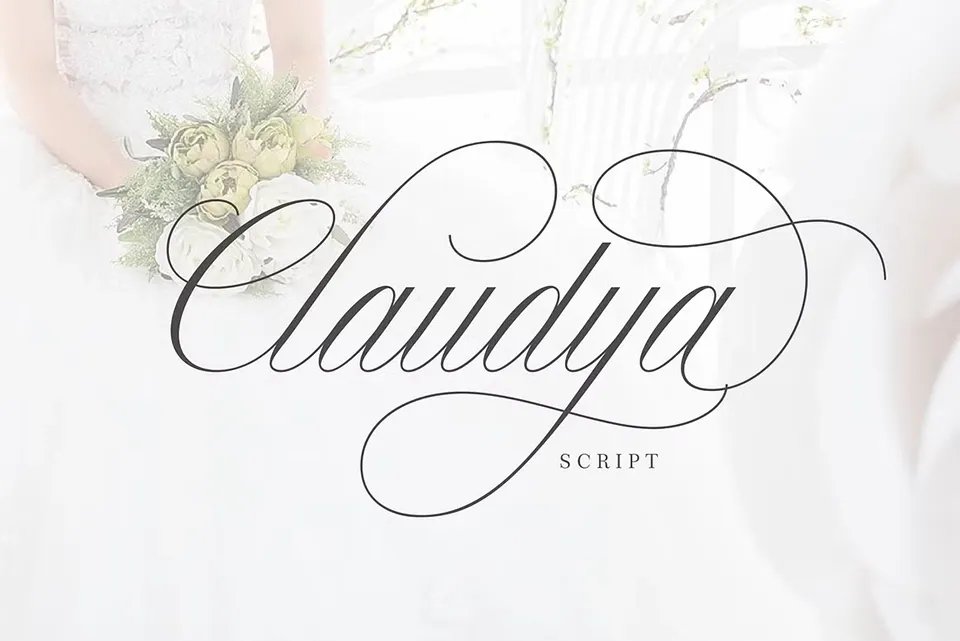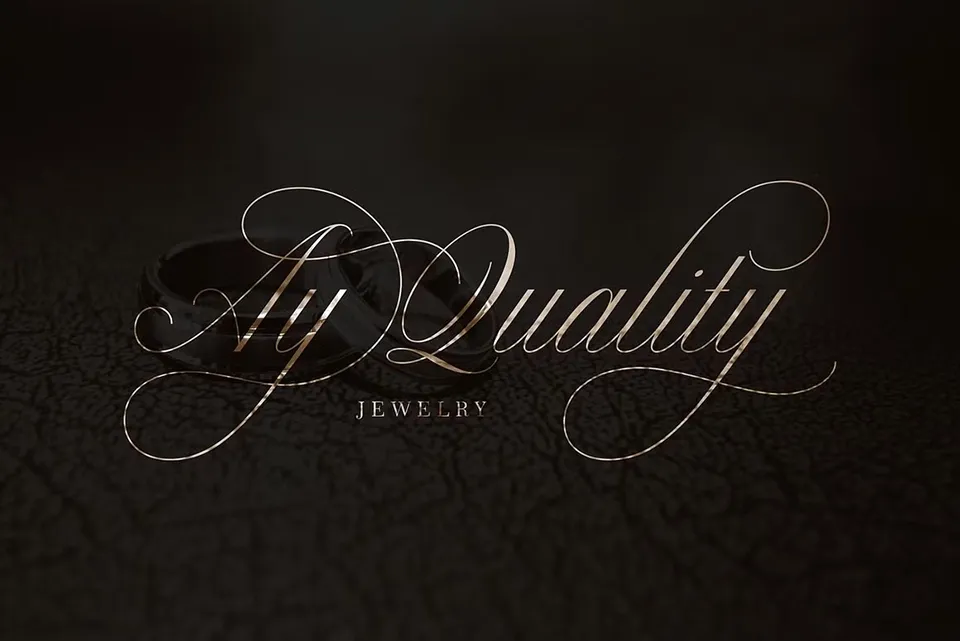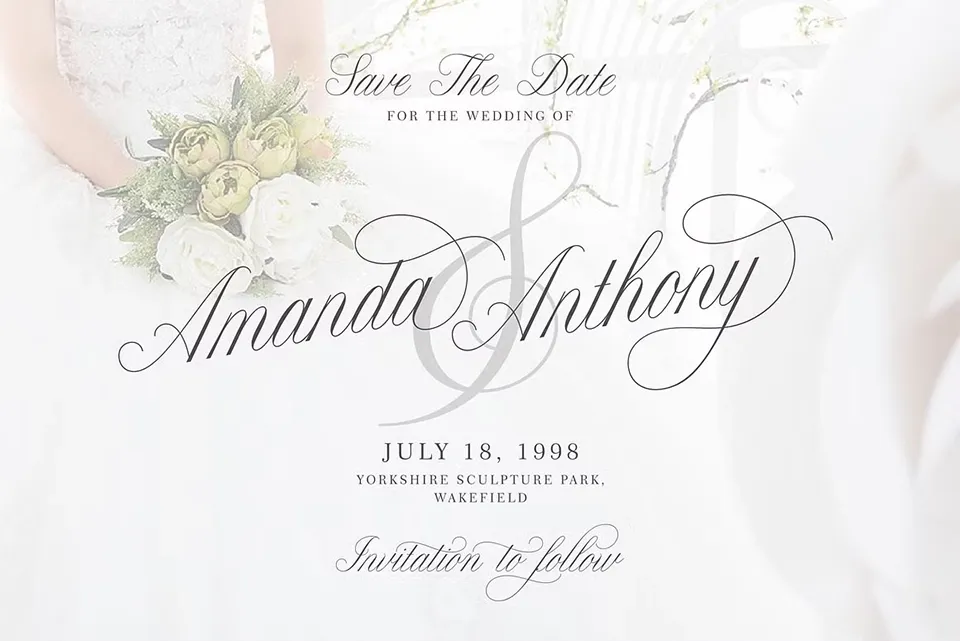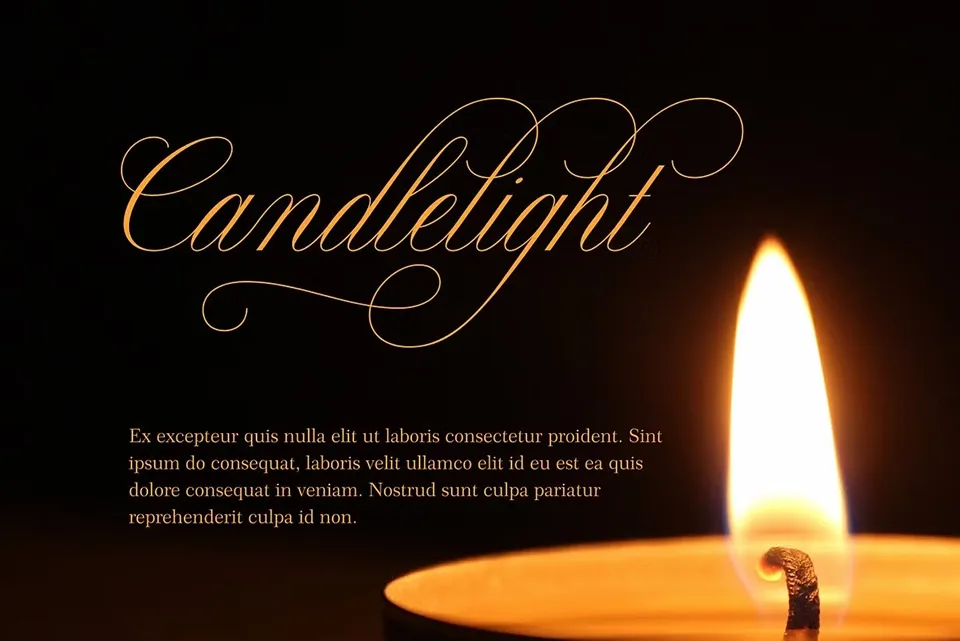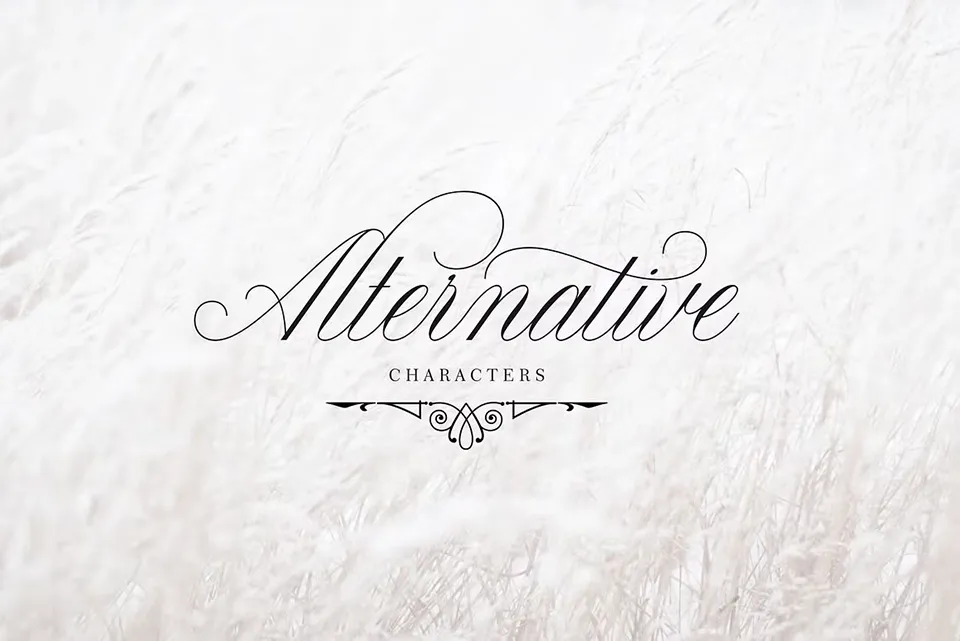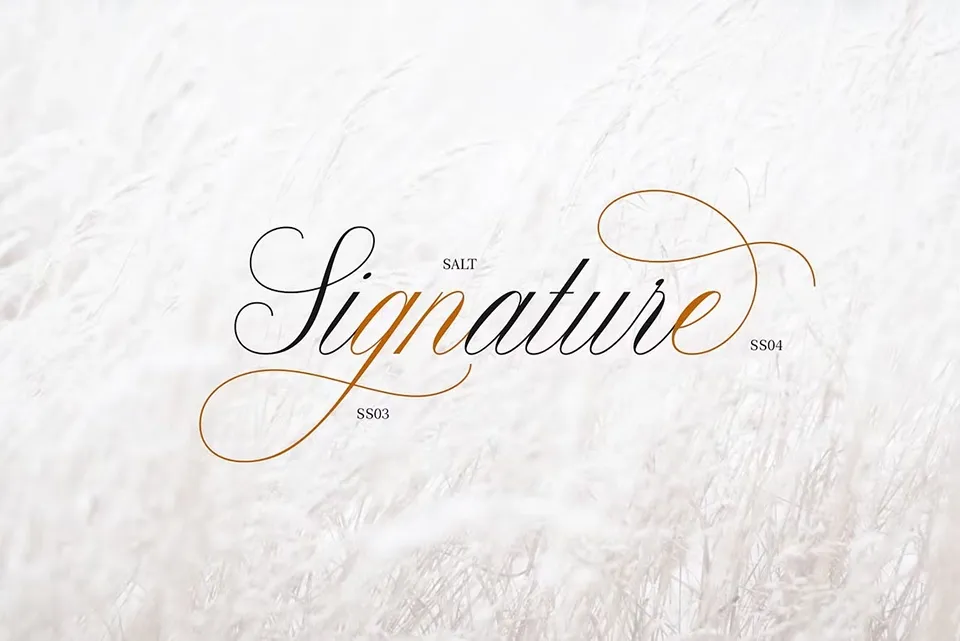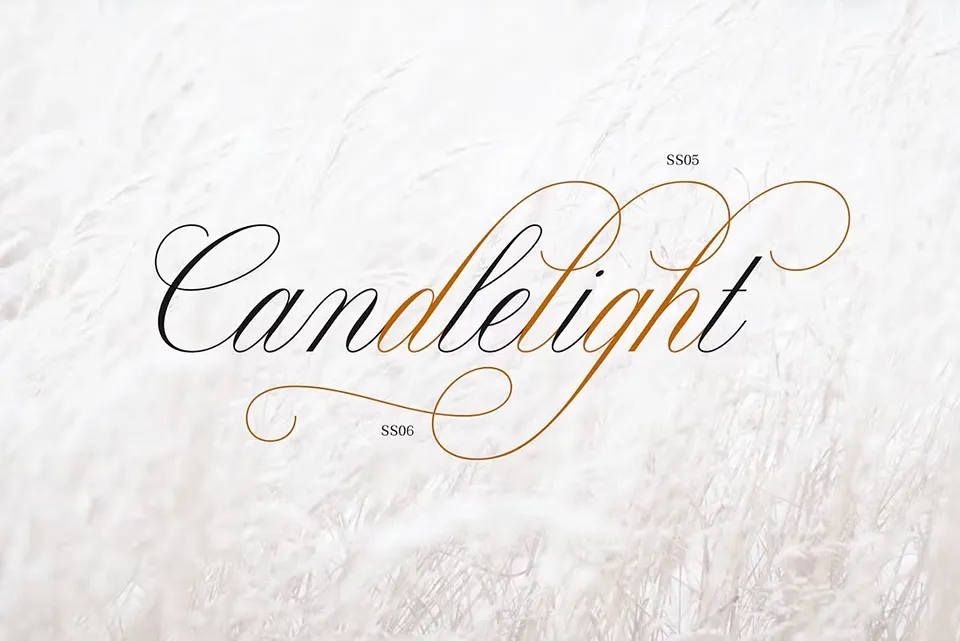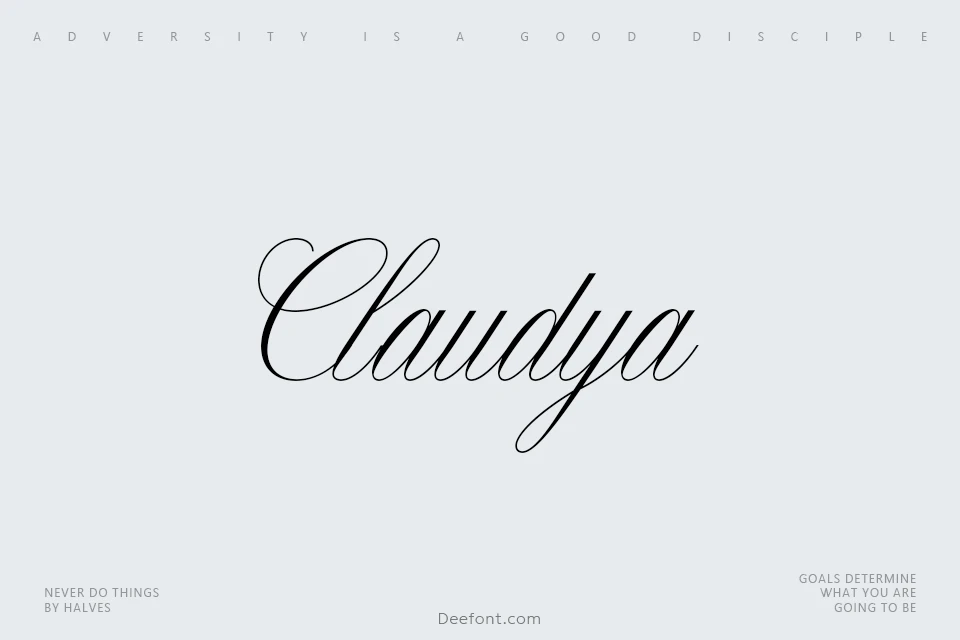
Claudya Script Font
Claudya Script Font is an elegant and sophisticated handwritten typeface, perfect for adding a touch of luxury to your designs. Its graceful, flowing letterforms are adorned with beautiful swashes and delicate curves, making it ideal for wedding invitations, branding, logos, and upscale stationery. The font’s refined style captures a sense of romance and charm, ensuring your text stands out with timeless beauty. Claudya Script is easy to read while maintaining an artistic flair, making it suitable for both formal and creative projects. Its unique character brings a sense of elegance and distinction to any design.